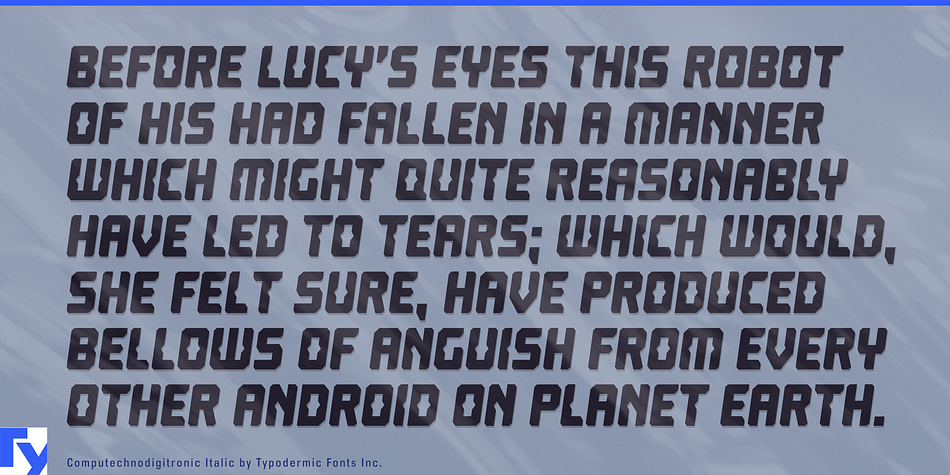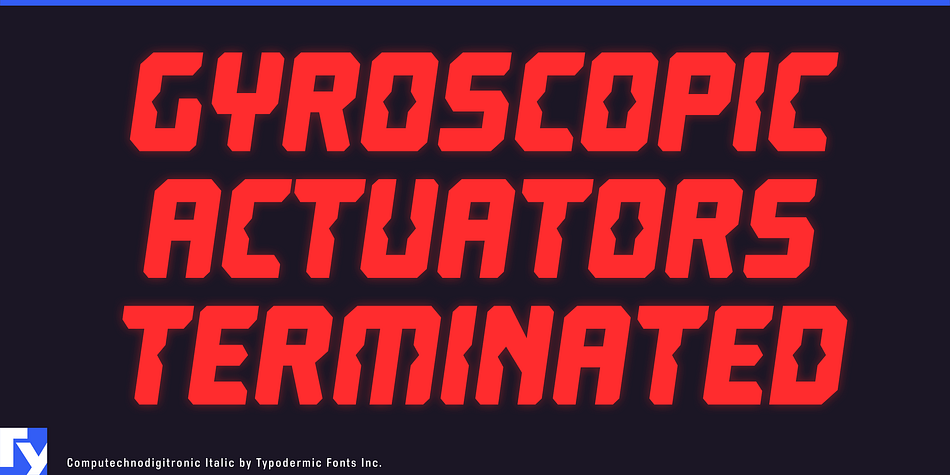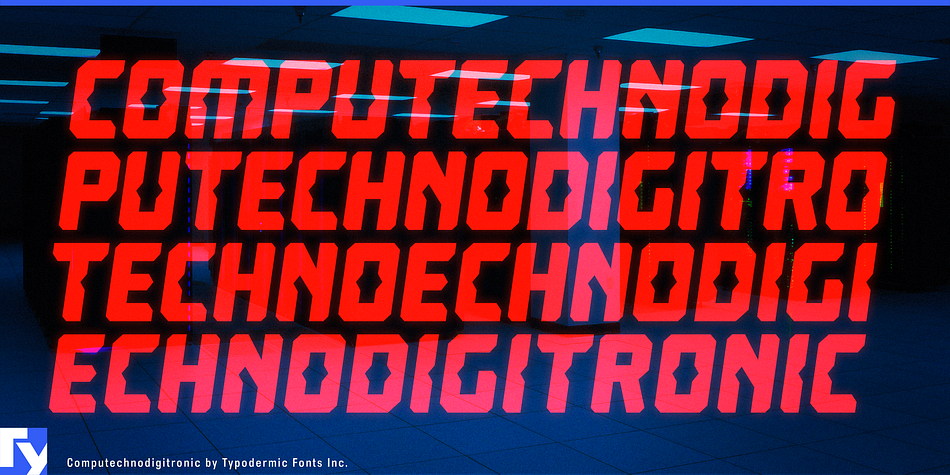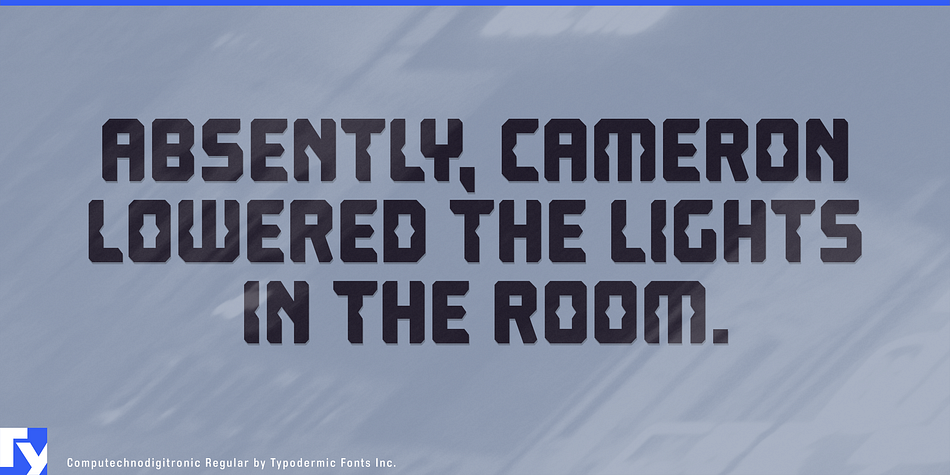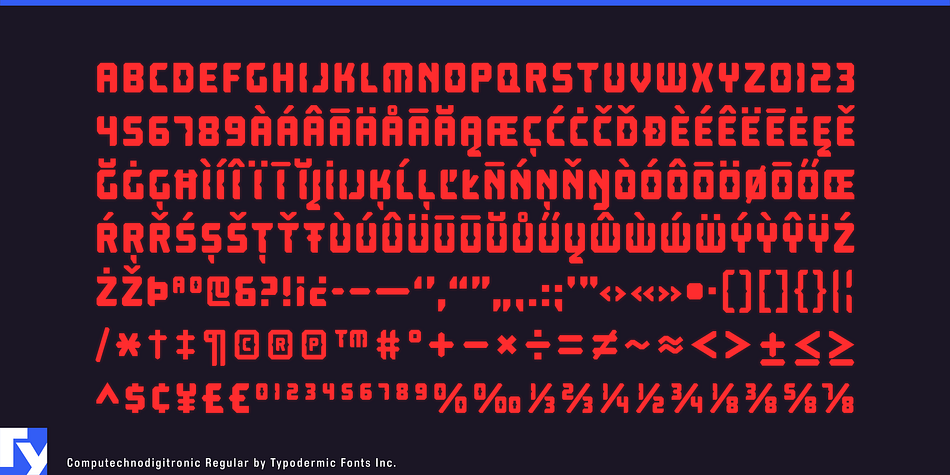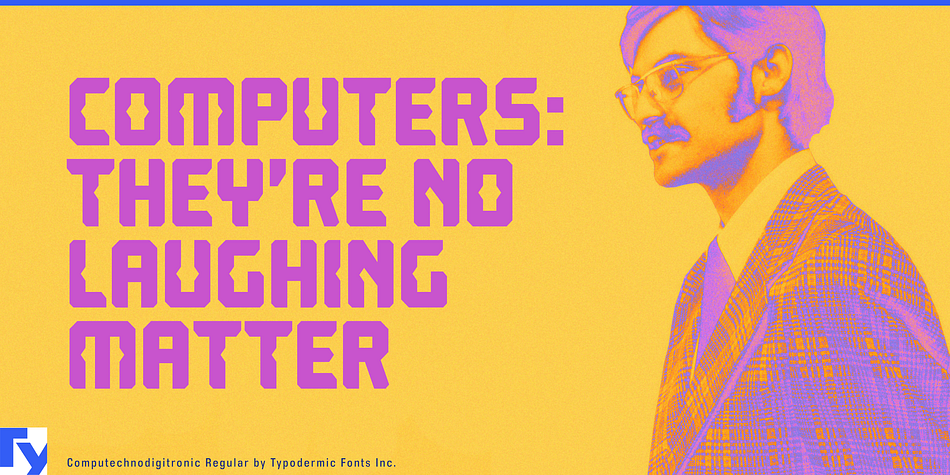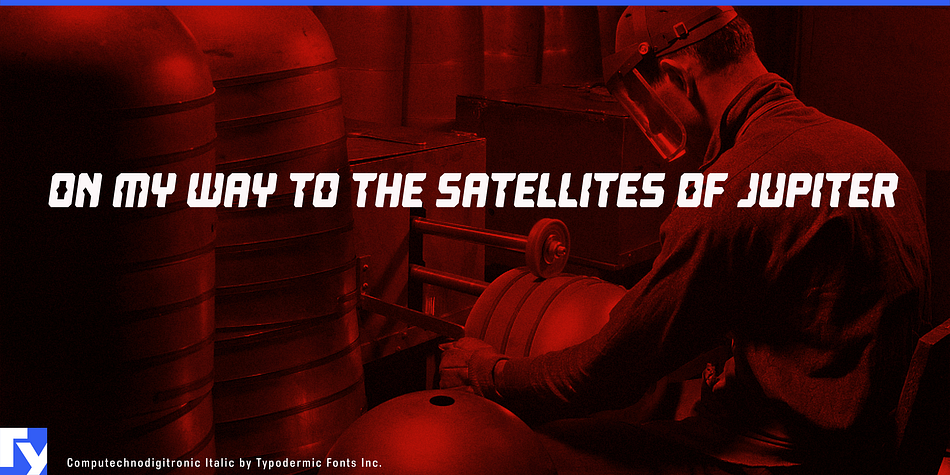
Computechnodigitronic is a display sans font family. This typeface has two styles and was published by Typodermic Fonts Inc.
Computechnodigitronic is a rock solid segmented LED/LCD font. It’s proportinally spaced with a focus on easy reading. OpenType lining numerals are included for timer countdowns, fuel prices etc.